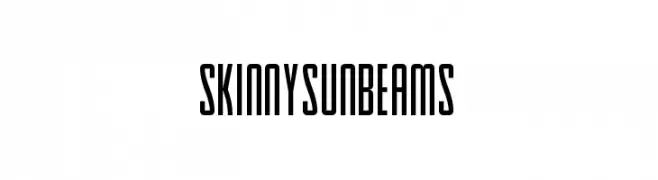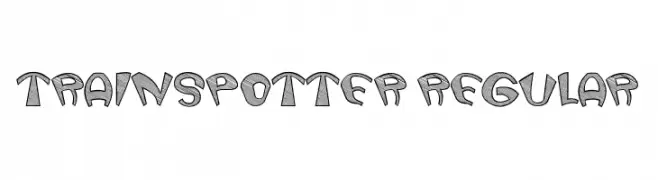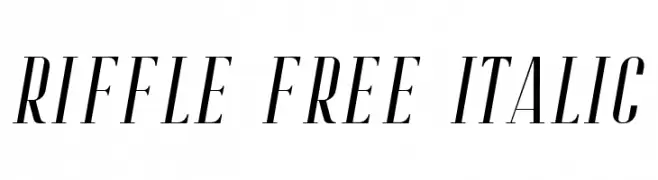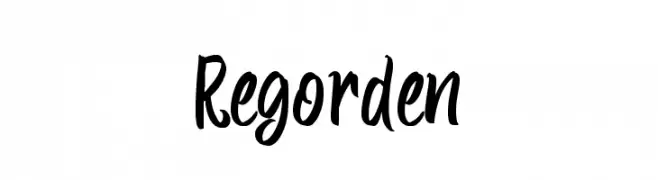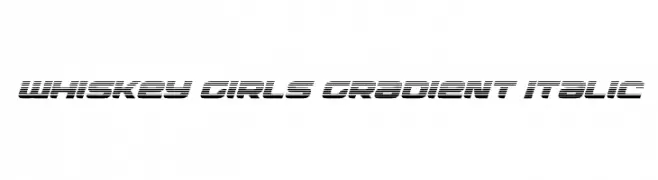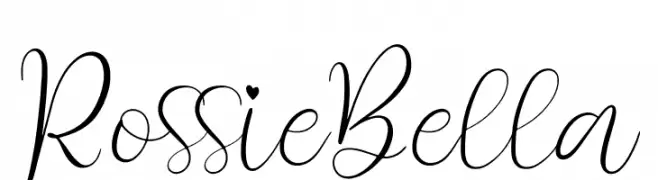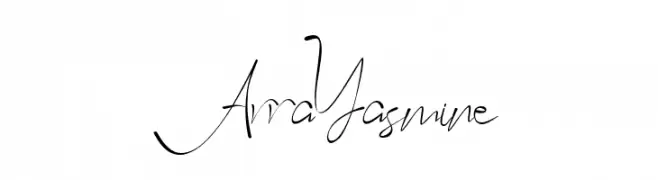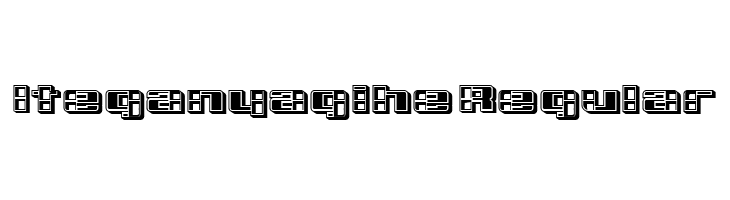
A tall, narrow font with consistent stroke width and a modern, minimalist style.
A playful, hand-drawn font with bold outlines and intricate patterns.
A playful, casual handwritten font with smooth curves and uniform strokes.
A bold, expressive handwritten font with a strong presence.
A bold, playful font with cartoon-like, exaggerated characters.
An elegant italic font with medium contrast and sleek, condensed letterforms.
A bold, expressive handwritten font with dynamic strokes and playful elegance.
A bold, italicized font with a gradient effect from horizontal lines, offering a modern and dynamic look.
A graceful script font with flowing, cursive letters and elegant swashes.
A modern, elegant script font with flowing, connected letters.